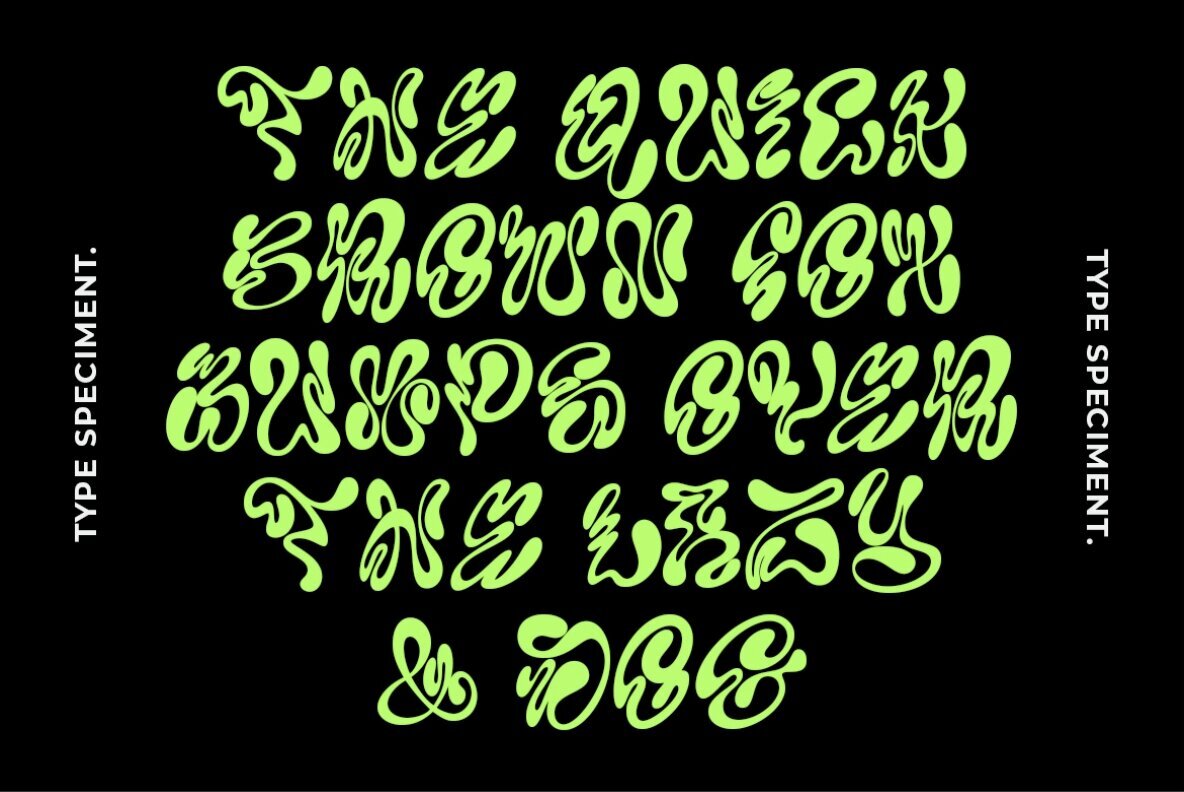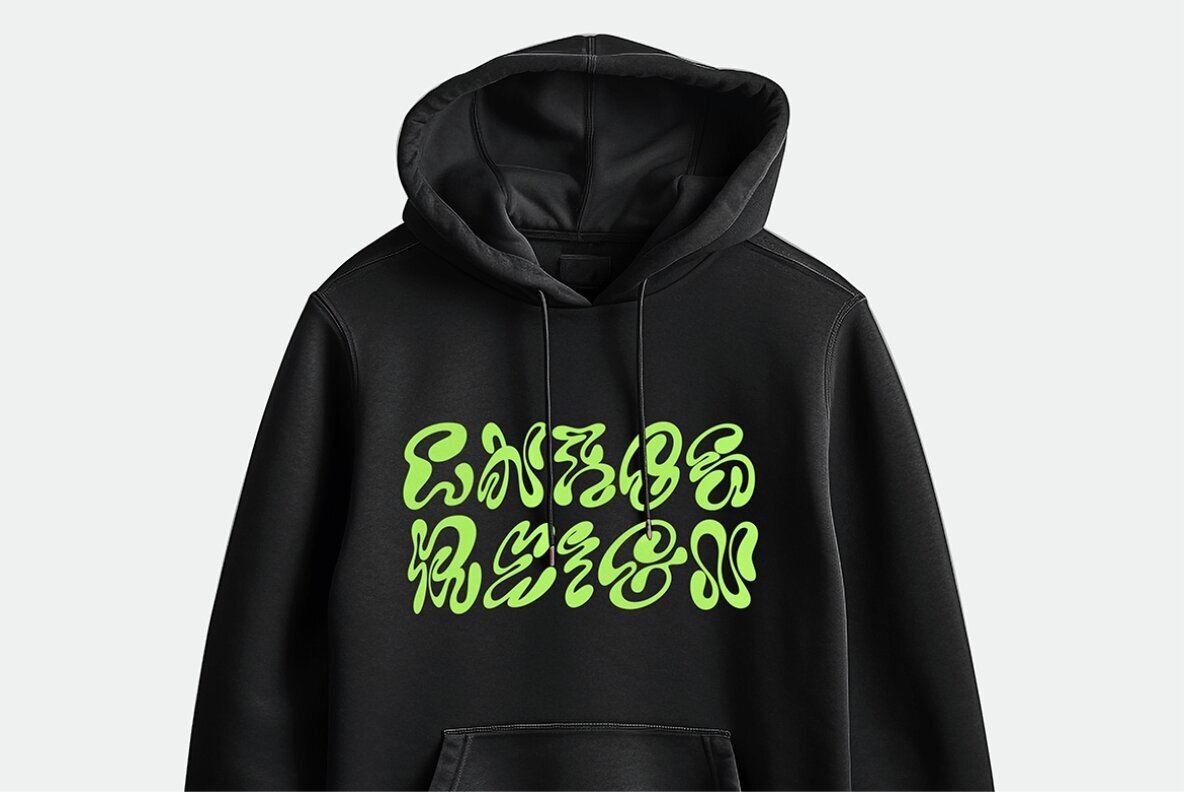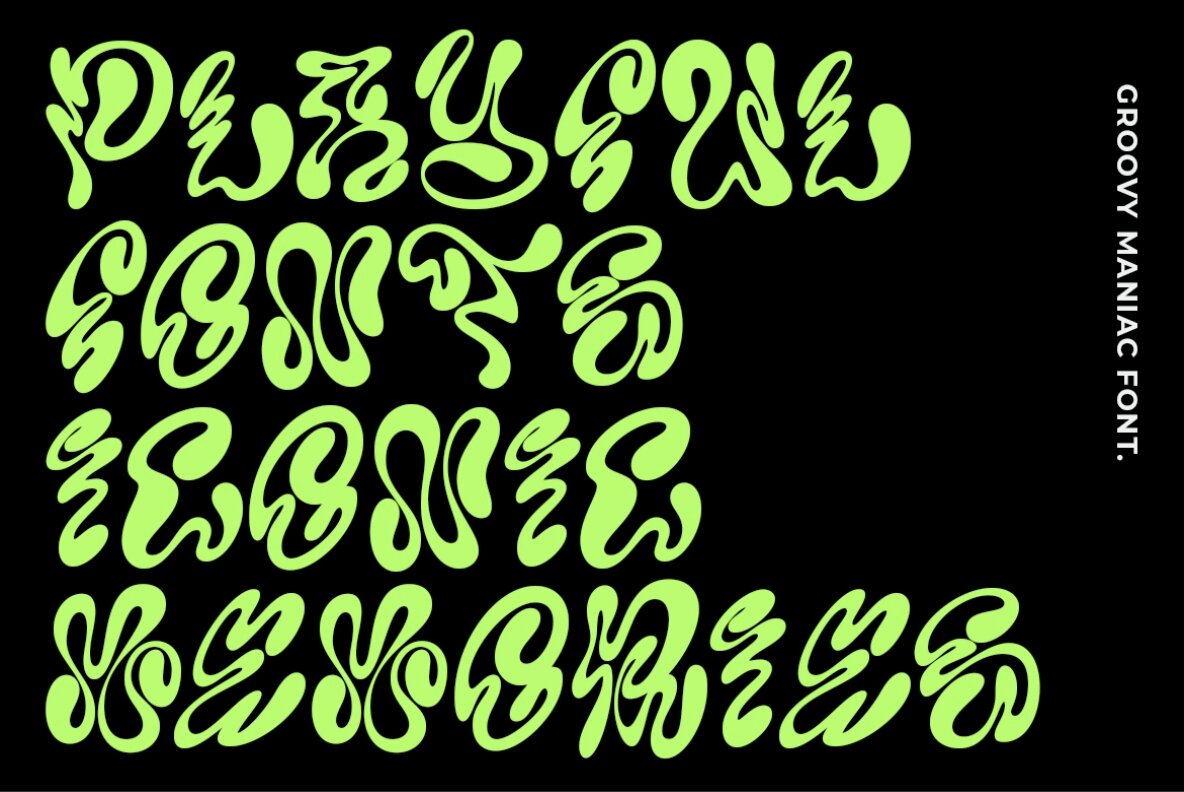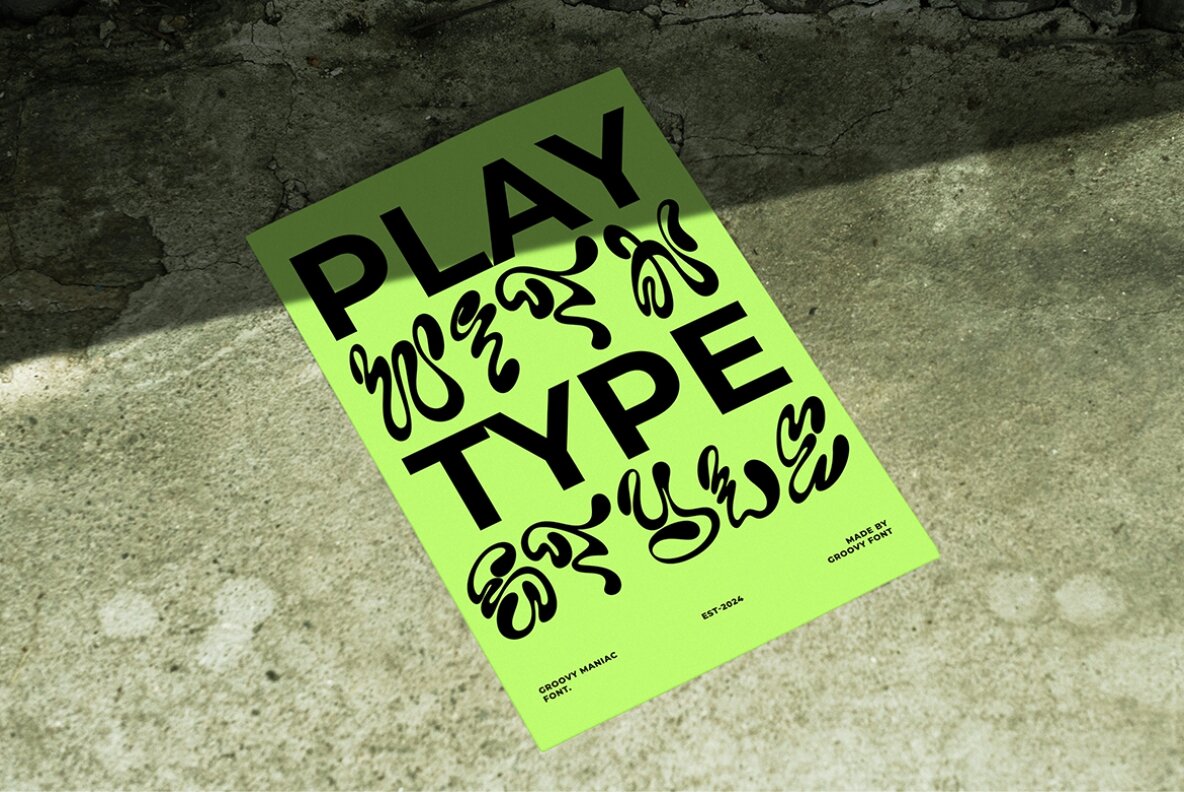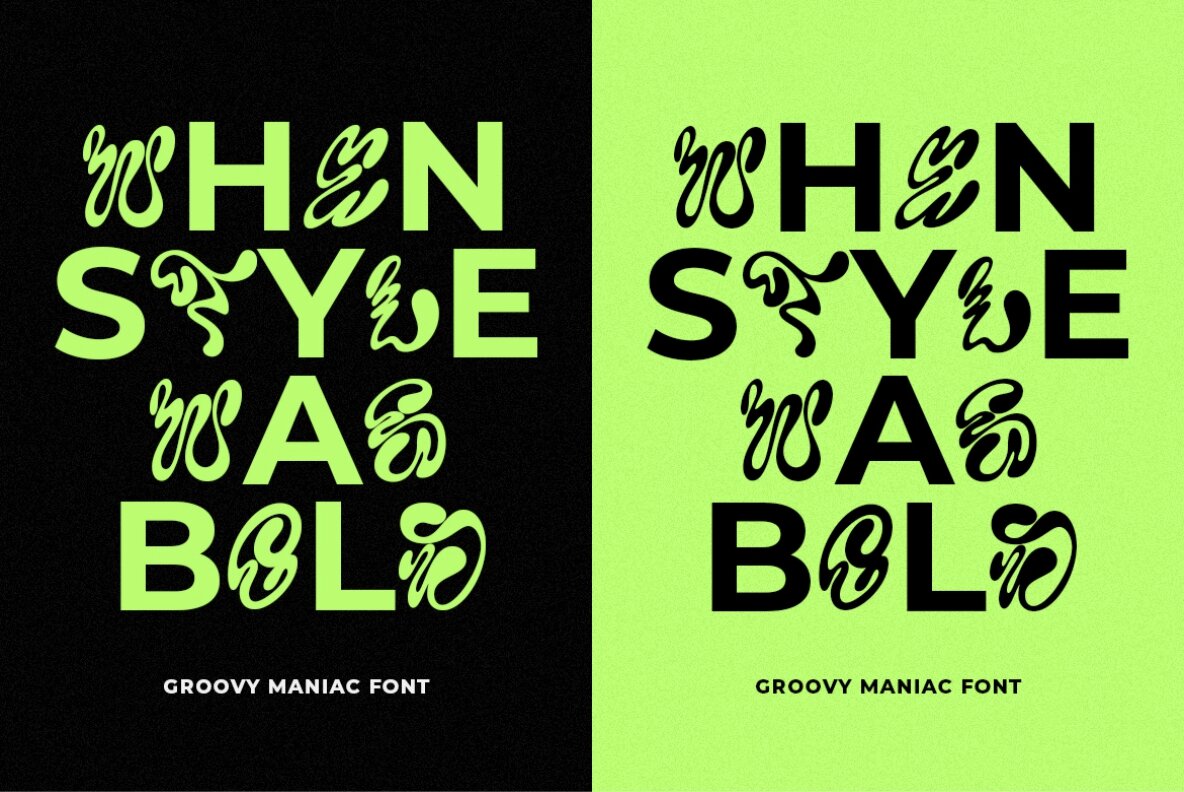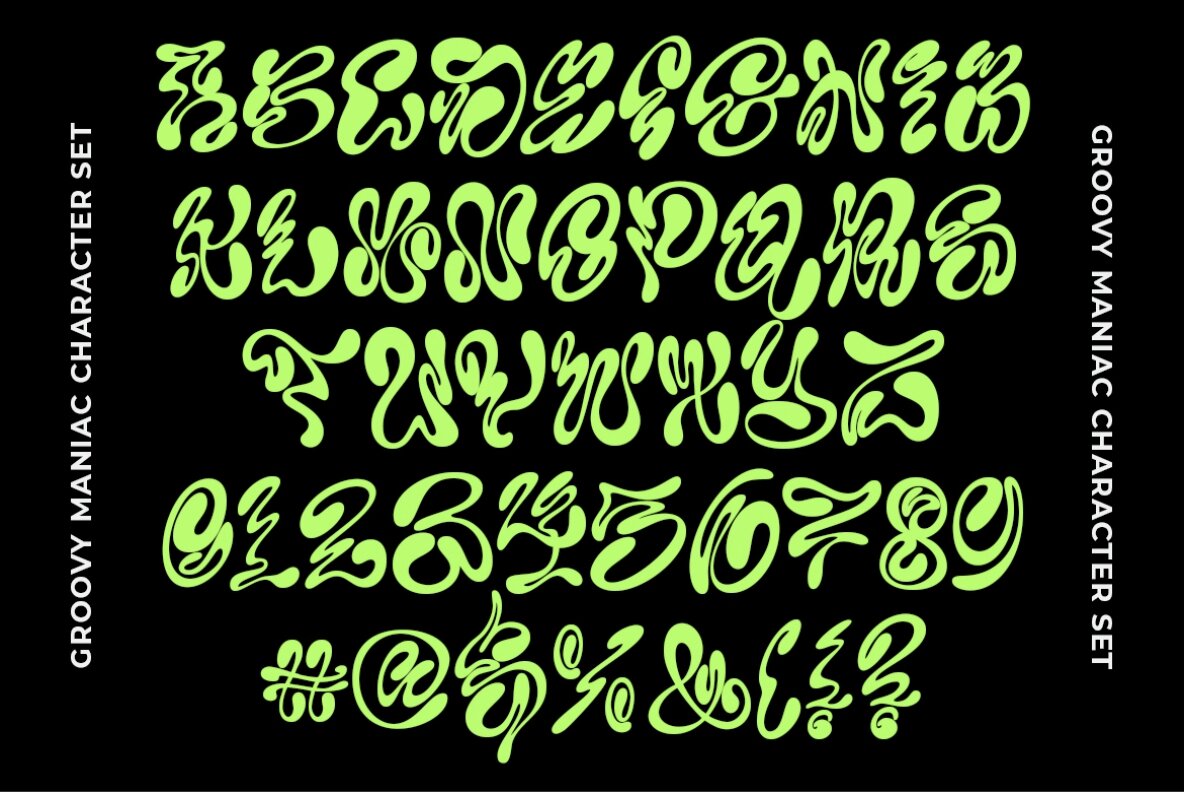
Groovy Maniac Font
Groovy Maniac
Groovy Maniac is an eccentric and lively display font that brings a unique charm to any project. Its playful, winding characters offer a distinctive vibe, perfectly suited for designs requiring a touch of unconventional creativity. This decorative typeface injects fun and personality, making your work truly stand out.
Ideal for projects that embrace quirky creativity, Groovy Maniac enhances originality with its whimsical design. Whether you're crafting posters, event invitations, or brand visuals, this font adds a delightful twist, ensuring your designs capture attention with their individuality and cheerfulness.